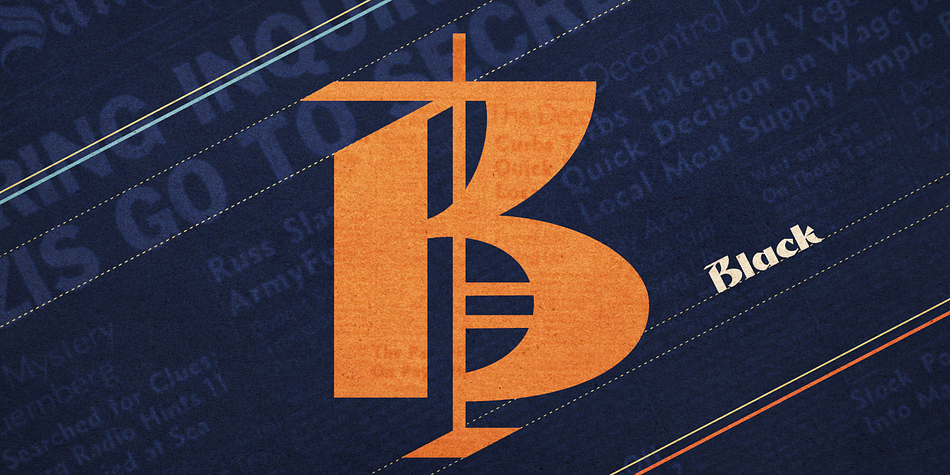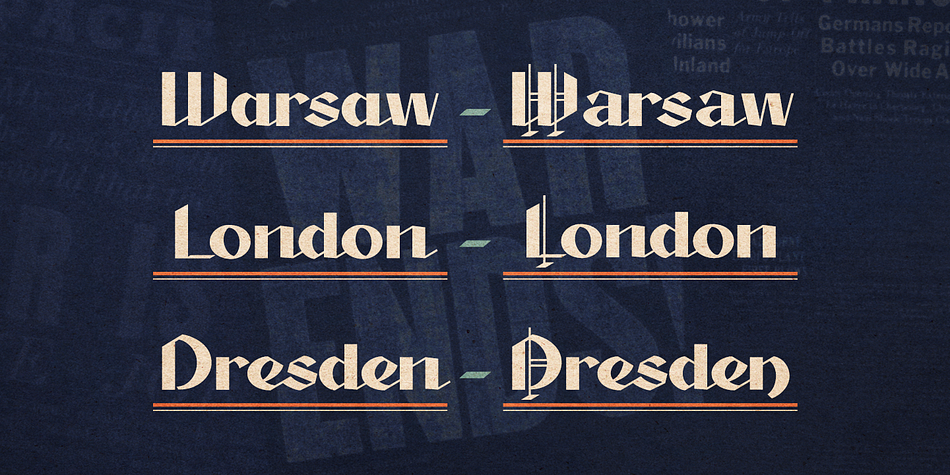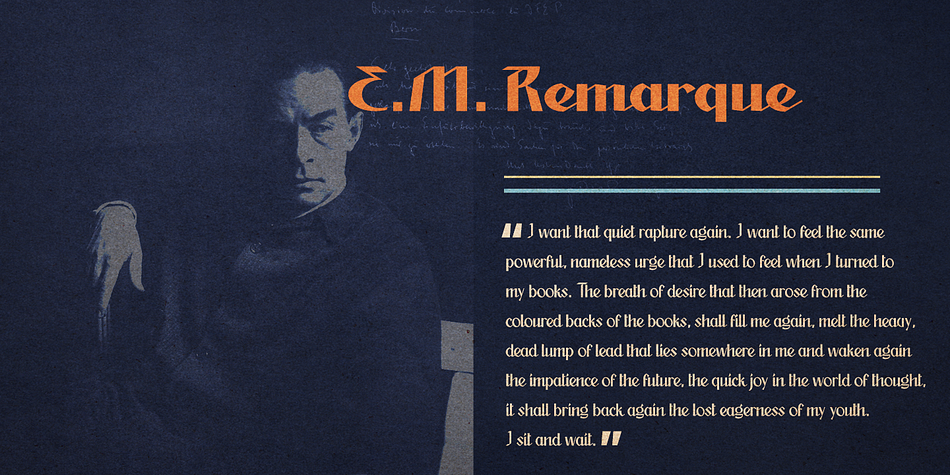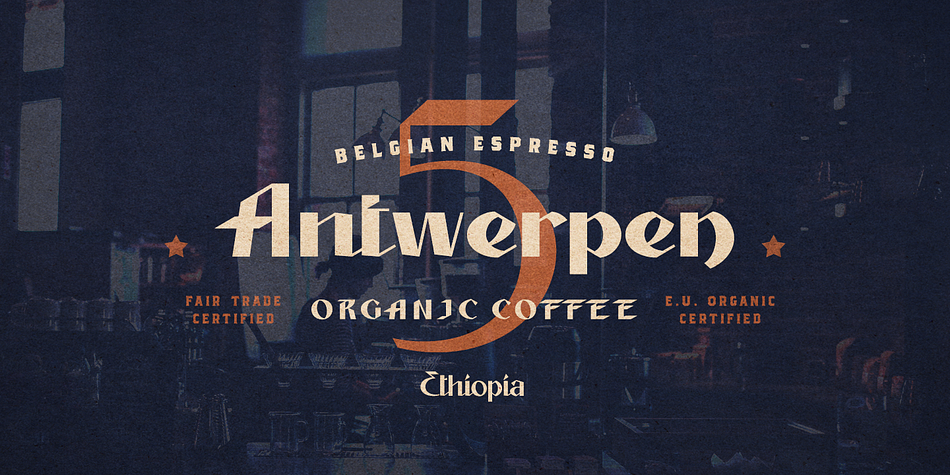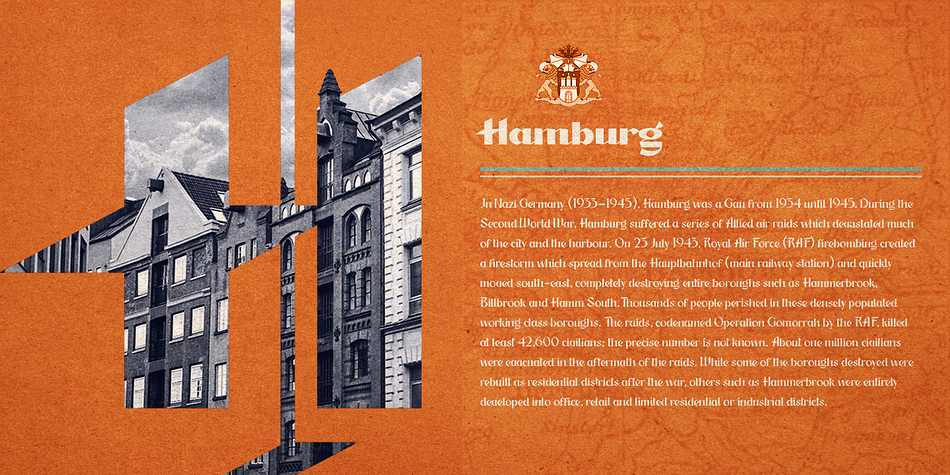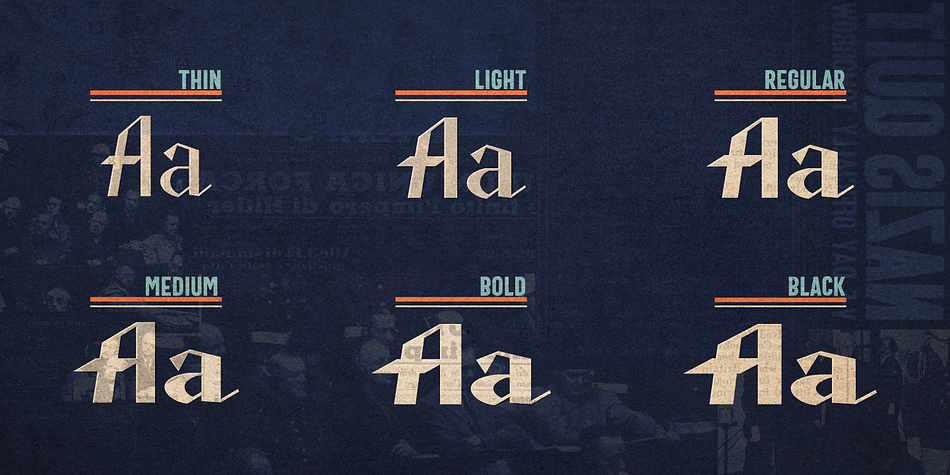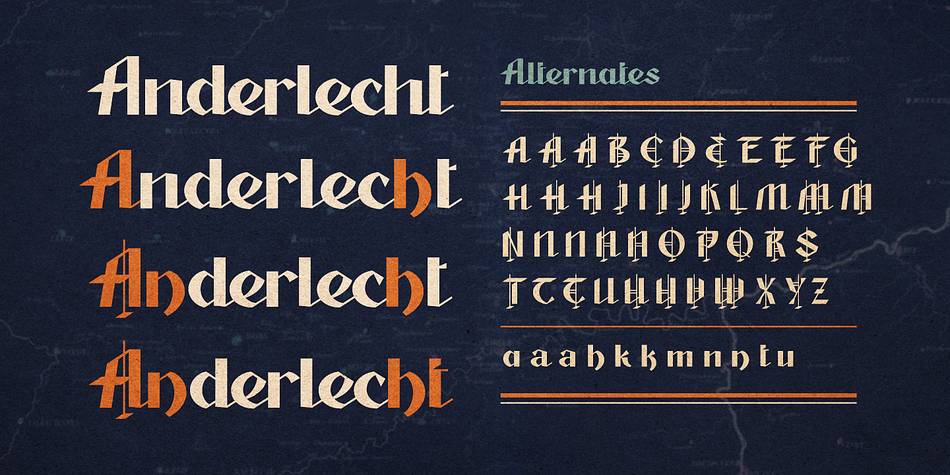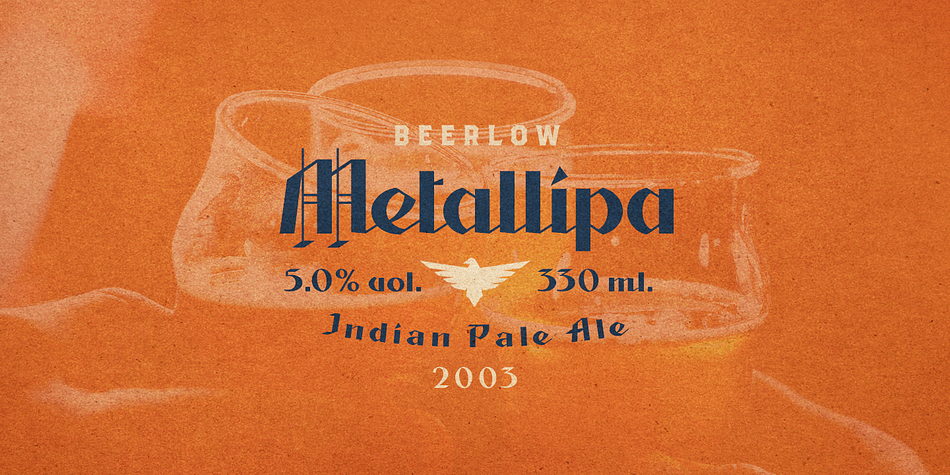
Designed by Pavel Korzhenko, Nurnberg is a blackletter font family. This typeface has six styles and was published by Vintage Voyage Design.
Nürnberg (Nuremberg in eng.)
New blackletter-sans font family in modern look with contrasts elements in six widths. Impressive style with non-typical Blackletter uppercases as alternates and normal Sans as standard. In the company with good-looking lowercases and their alternates you can get outstanding result for your project.
Six widths give you wide range of use. Massive Bold or Black will be really good in none-long magazine headlines, some logos or cafe/bar signs, menu’s or coffeeshops. Medium or Regular is for normally (not giant) text blocks or any of accented texts. Light and Thin are good in big pt. Short word forms or numerals is just awesome.